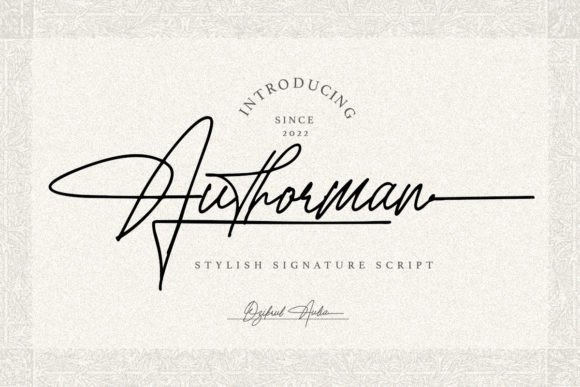
Step into the world of Authorman Font, a breathtaking script font that dances across your designs with its graceful curves and intricate details. Experience the beauty of modern calligraphy, where elegance meets sophistication, creating a visual symphony that captivates and inspires.
With Authorman Font, your words transform into works of art, adding a touch of class and grace to every project you undertake. Its delicate strokes and flowing lines bring a sense of harmony and balance, making it perfect for wedding invitations, branding materials, and any project that demands refined beauty.
This font is more than just a collection of characters; it's an expression of creativity and individuality. Immerse yourself in a world where your imagination takes flight, and your designs come to life with the elegance and poise that only Authorman Font can provide.
The perfect font for capturing those special moments, Authorman Font adds a touch of magic to wedding backdrops, invitations, and greeting cards. Its romantic charm evokes emotions and creates a lasting impression, making your designs unforgettable.
Elevate your branding materials with the sophistication of Authorman Font. Its modern twist and refined beauty command attention, leaving a lasting impact on your customers and partners. Create business cards, letterheads, and marketing materials that exude professionalism and creativity.
With Authorman Font, every design becomes a captivating story, a visual masterpiece that speaks volumes. Its versatility extends beyond weddings and branding, making it the perfect choice for logos, posters, social media graphics, and any project that demands a touch of timeless beauty.